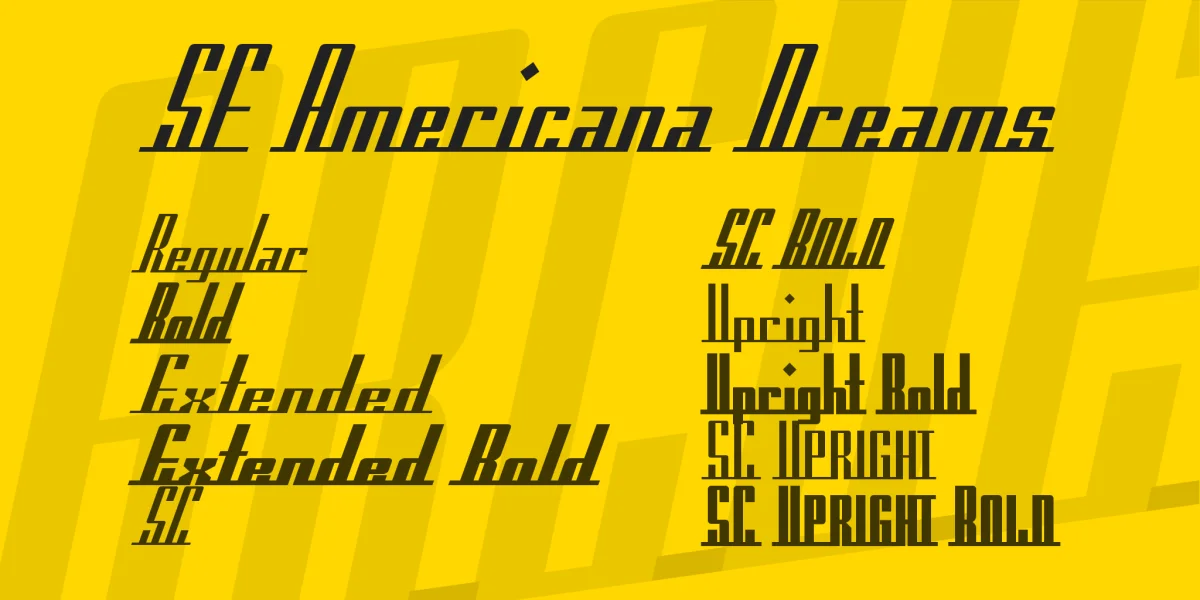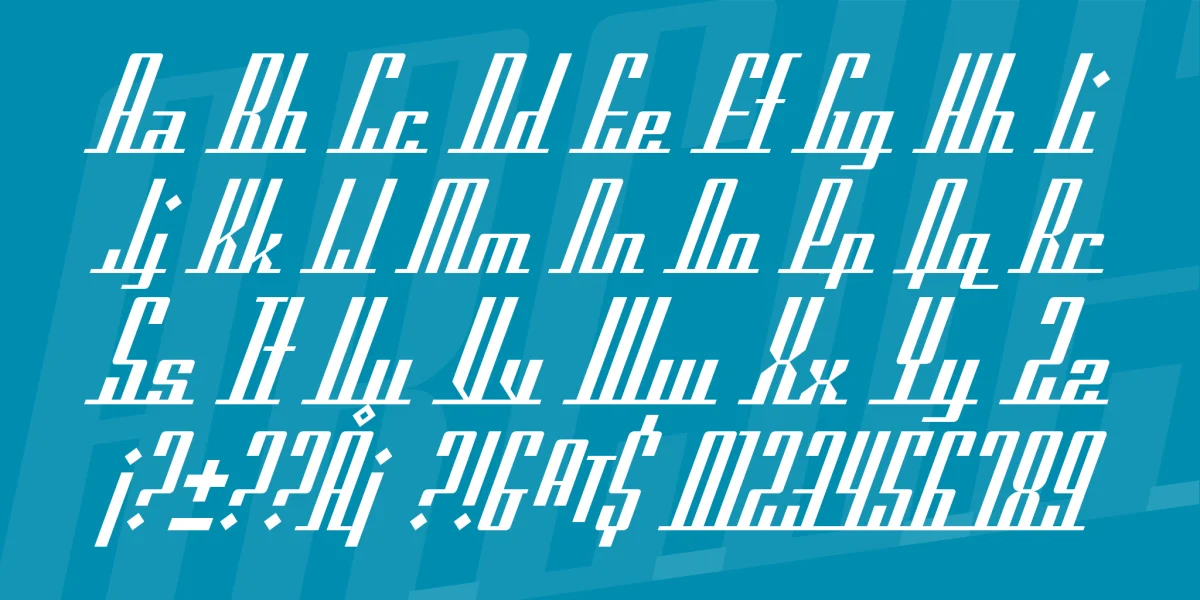
A swell looking typeface reminiscent of the 1950's, SF Americana Dreams contains lowercase and uppercase letters, numbers, punctuation, and accented characters.